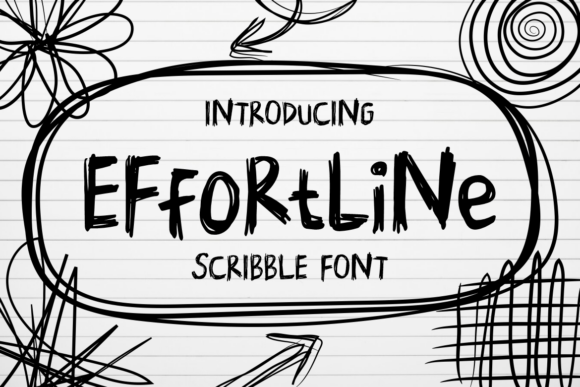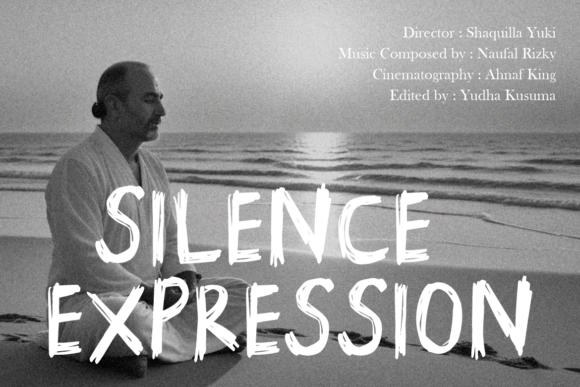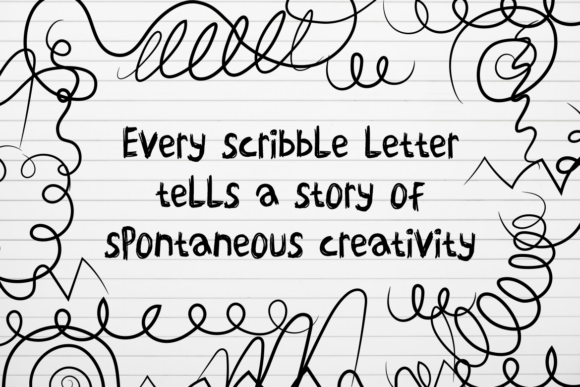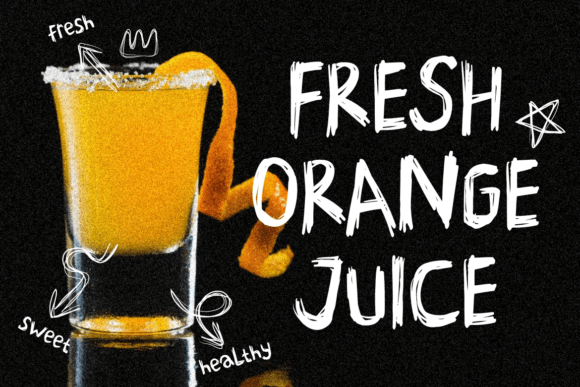
Effortline Font: A Playful Scribble Font for Cute DIY & Craft Projects
About the Effortline Font
Experience the unique personality of Effortline Font, a font designed for impact. Introducing Effortline – Scribble Font, a playful and vibrant typeface that captures the essence of creativity and spontaneity. This font is perfect for those who wish to add a touch of whimsy and childlike wonder to their designs. With its bold, hand-drawn characteristics, Effortline embodies the joyful scribbles of a child’s artwork while maintaining the legibility needed for diverse design projects. Each letter appears as if it were quickly sketched with a brush, giving your text an authentic, handmade feel that is both engaging and delightful. Whether you’re designing logos, branding materials, crafting invitation cards, or creating eye-catching posters, Effortline adds a vibrant and engaging touch to your projects.
Effortline is not just another font; it’s a statement of fun and imagination. Ideal for logos, branding materials, invitation cards, and more, this font brings an element of quirky charm to any project. Whether you’re crafting packaging designs that stand out on the shelf or creating eye-catching movie titles that draw viewers in, Effortline ensures your message is conveyed with personality and flair. Its colorful style makes it suitable for children’s book covers or playful magazine layouts as well. Let Effortline be the voice of your next project and watch your creations come alive with character and charm.
Effortline Font Usage Examples
Effortline Font Example